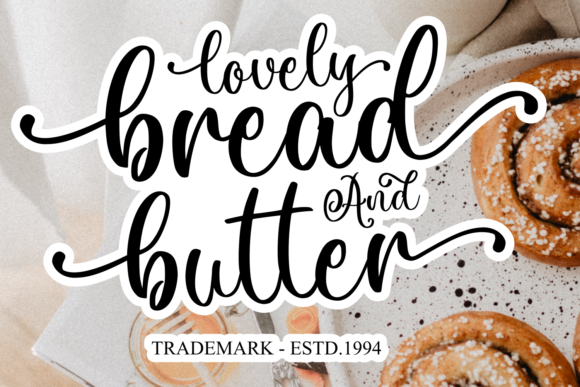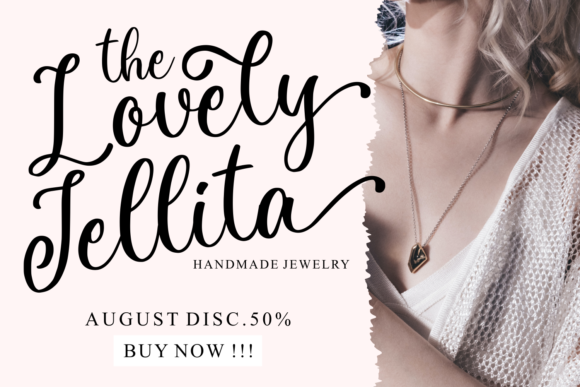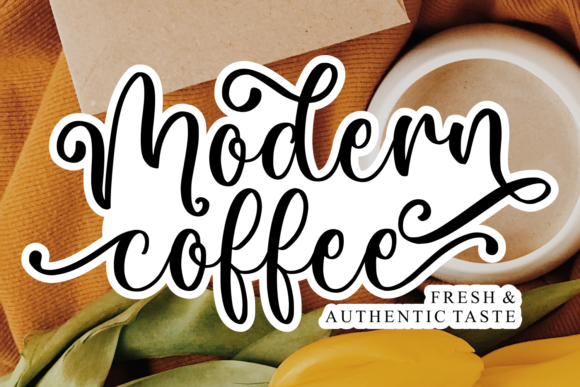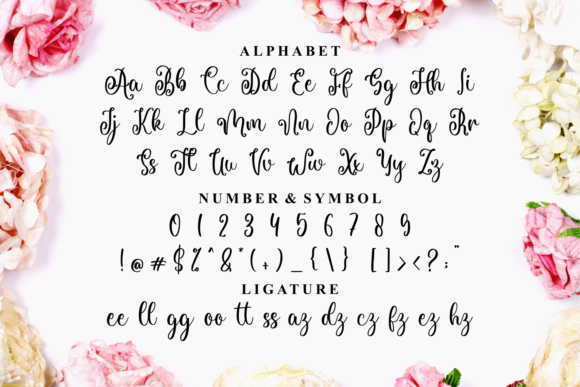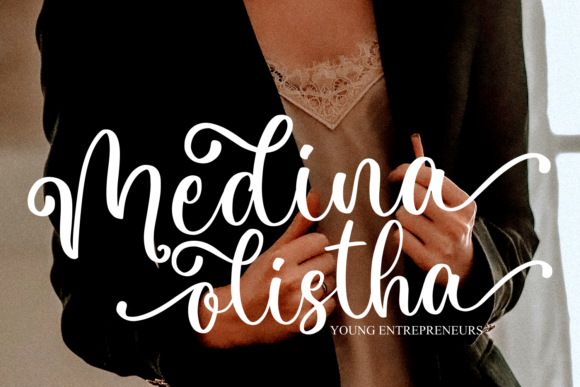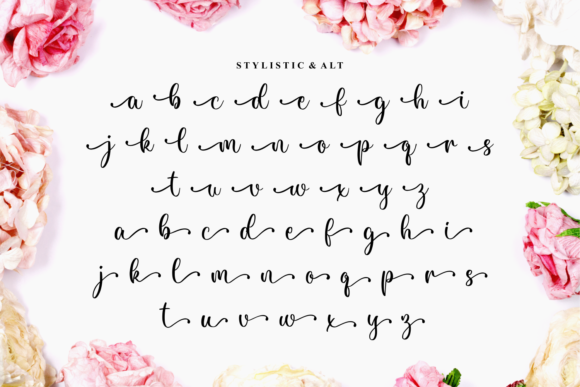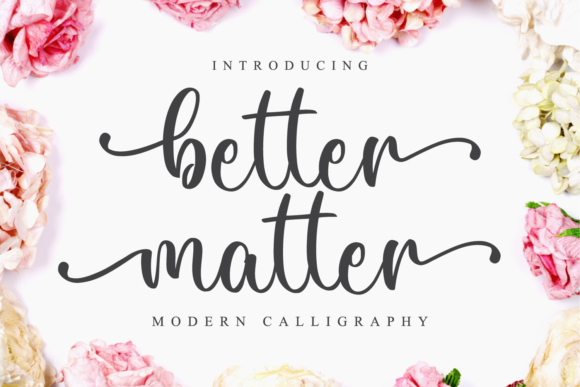
The Elusive Perfect Font: My Journey with Better Matter
I’ll never forget the frustration of working on a project, hours poured into designing what I thought was a stunning visual piece, only to realize that the font I’d chosen was completely off. It was like the icing on the cake didn’t quite match the flavor. My client wanted something elegant, something that screamed professionalism, but what I had was a mess. That’s when I stumbled upon Better Matter, a dazzling script font that promised to elevate my designs. And boy, did it deliver! ✨
An Honest Review of Better Matter
• 💫 Highly detailed and neatly crafted: Better Matter’s attention to detail is impressive. Each letter, each swash, and each glyph is meticulously designed to give your text a luxurious feel.
• 🔓 PUA encoded for easy access: The font comes with PUA (Private Use Area) encoding, which means you can easily access all the glyphs and swashes without having to dig through complicated menus.
• 🎨 Versatility: Whether you’re working on a branding project, a wedding invitation, or a business card, Better Matter adapts beautifully to different contexts.
• 👍 Easy to read: Despite its elegant and cursive nature, Better Matter remains surprisingly legible, even at smaller sizes.
While Better Matter has won me over, it’s not without its quirks. For instance:
• 🤔 Learning curve for beginners: If you’re new to using script fonts or OpenType features, there might be a bit of a learning curve to fully utilize Better Matter’s capabilities.
• ⚠️ Overuse can be overwhelming: Like any powerful font, Better Matter can overwhelm your design if overused. Balance is key.
The Story Behind Better Matter
Rumor has it that Better Matter was inspired by the elegant handwriting of 19th-century calligraphers. The designer, a typography enthusiast, aimed to create a font that captures the essence of traditional calligraphy while being highly versatile and user-friendly. Whether or not that’s true, it’s clear that Better Matter has a rich design heritage.
A: PUA (Private Use Area) encoding allows font users to access special characters, glyphs, and swashes that aren’t part of the standard Unicode range. This means you can easily use all the features of Better Matter without complicated workarounds.
Q: Is Better Matter suitable for body text?
A: While Better Matter is stunning as a display font, it’s also surprisingly legible. However, for long-form body text, you might want to pair it with a more straightforward font for readability.